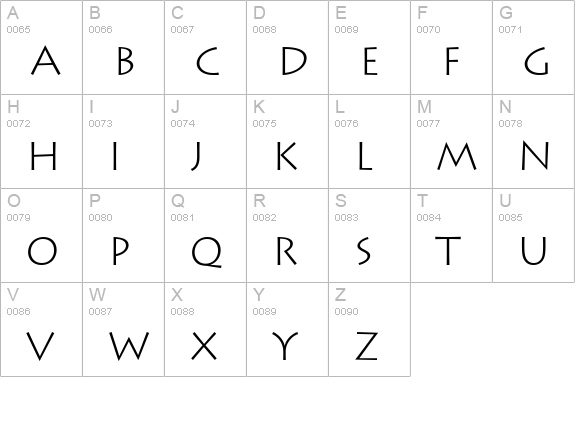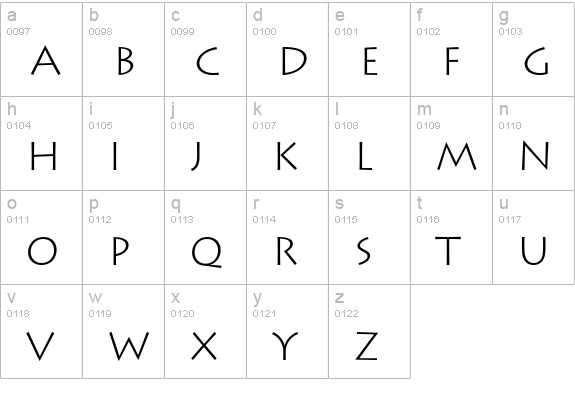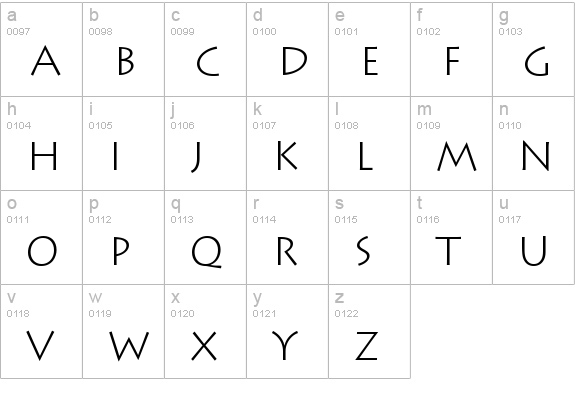
Austere Light SSi Light Font Details
Austere Light SSi Light is a refined, elegant variant in the Austere typeface family \xE2\x80\x94 well suited to elegant body text, refined sub-headings, and luxury branding.